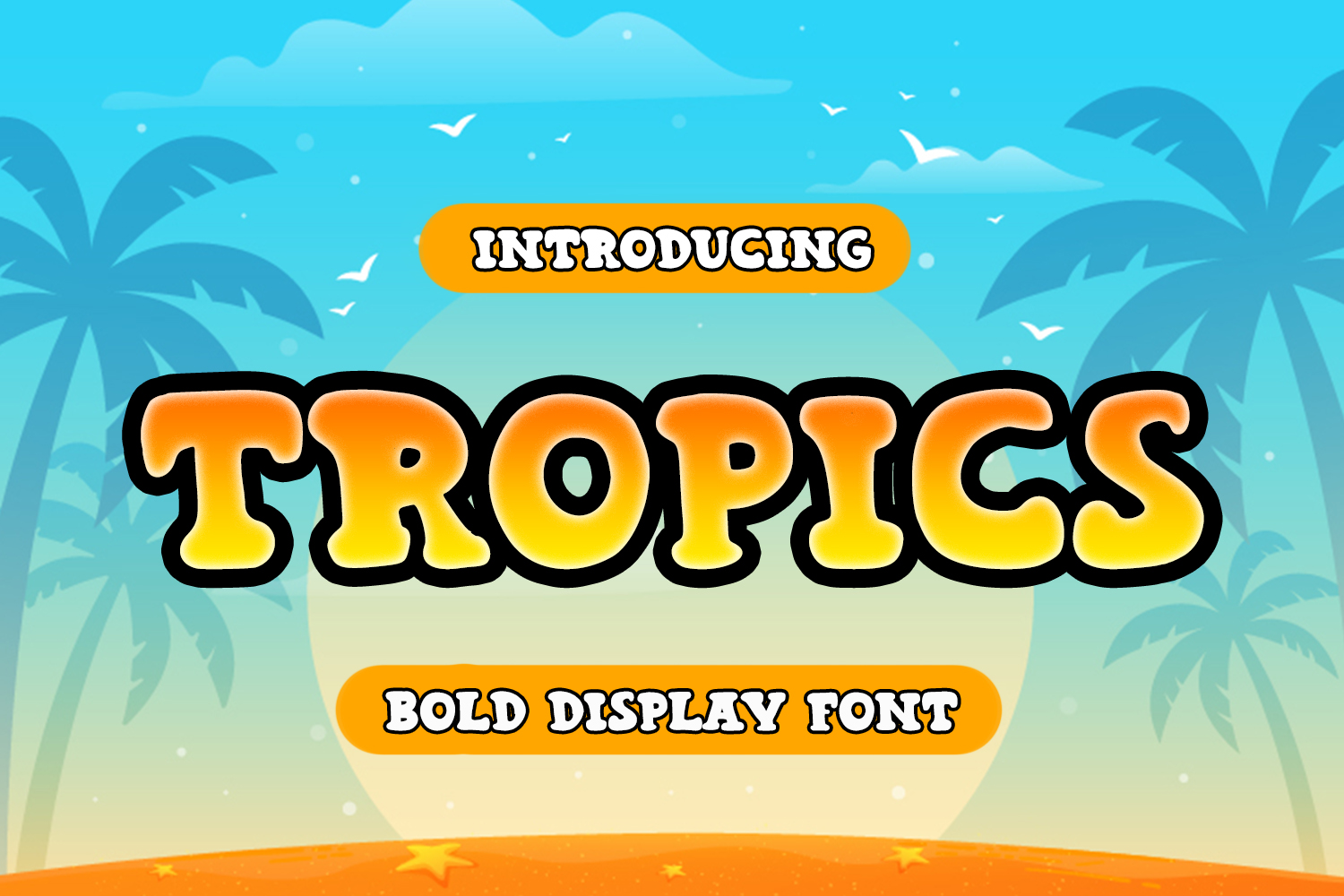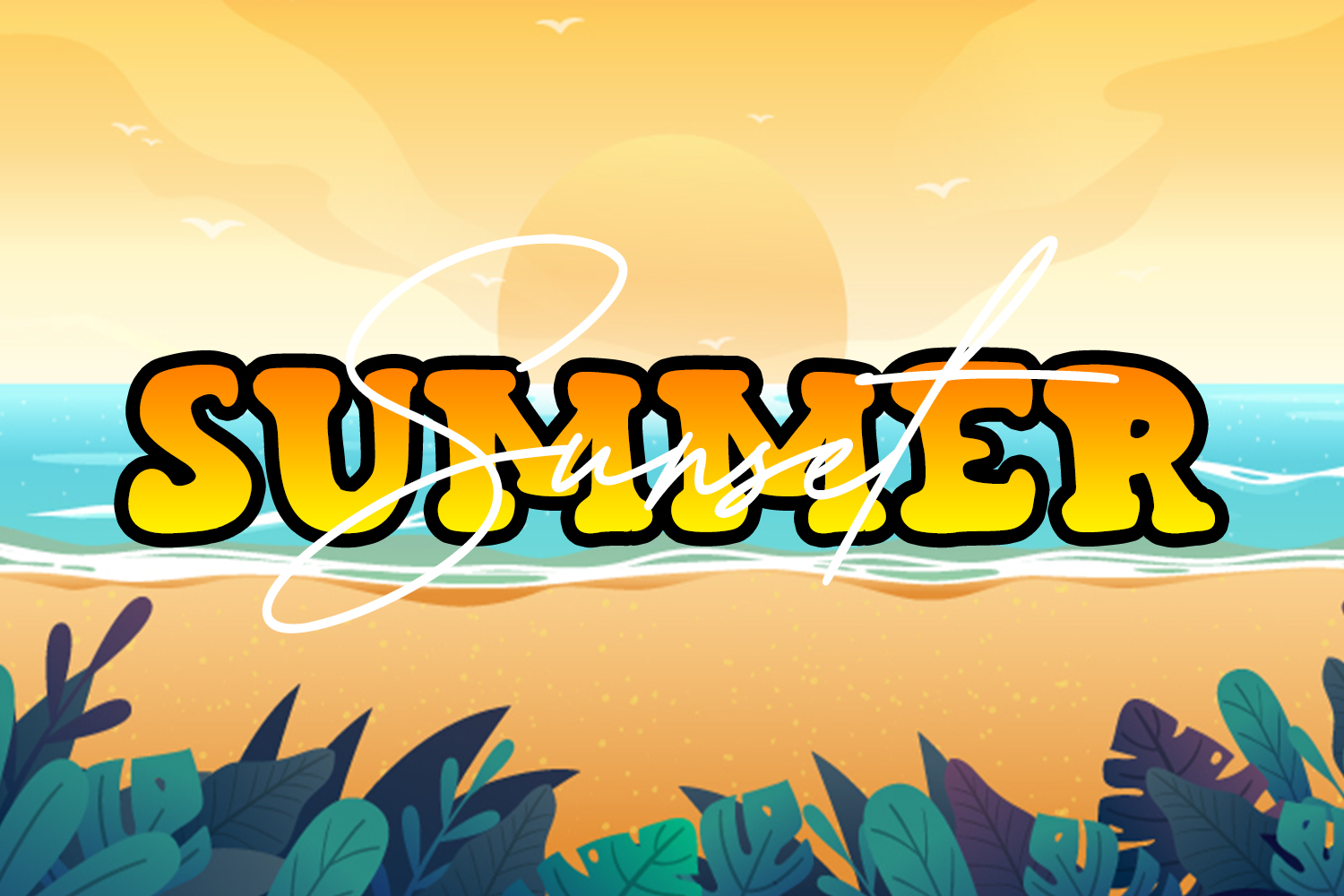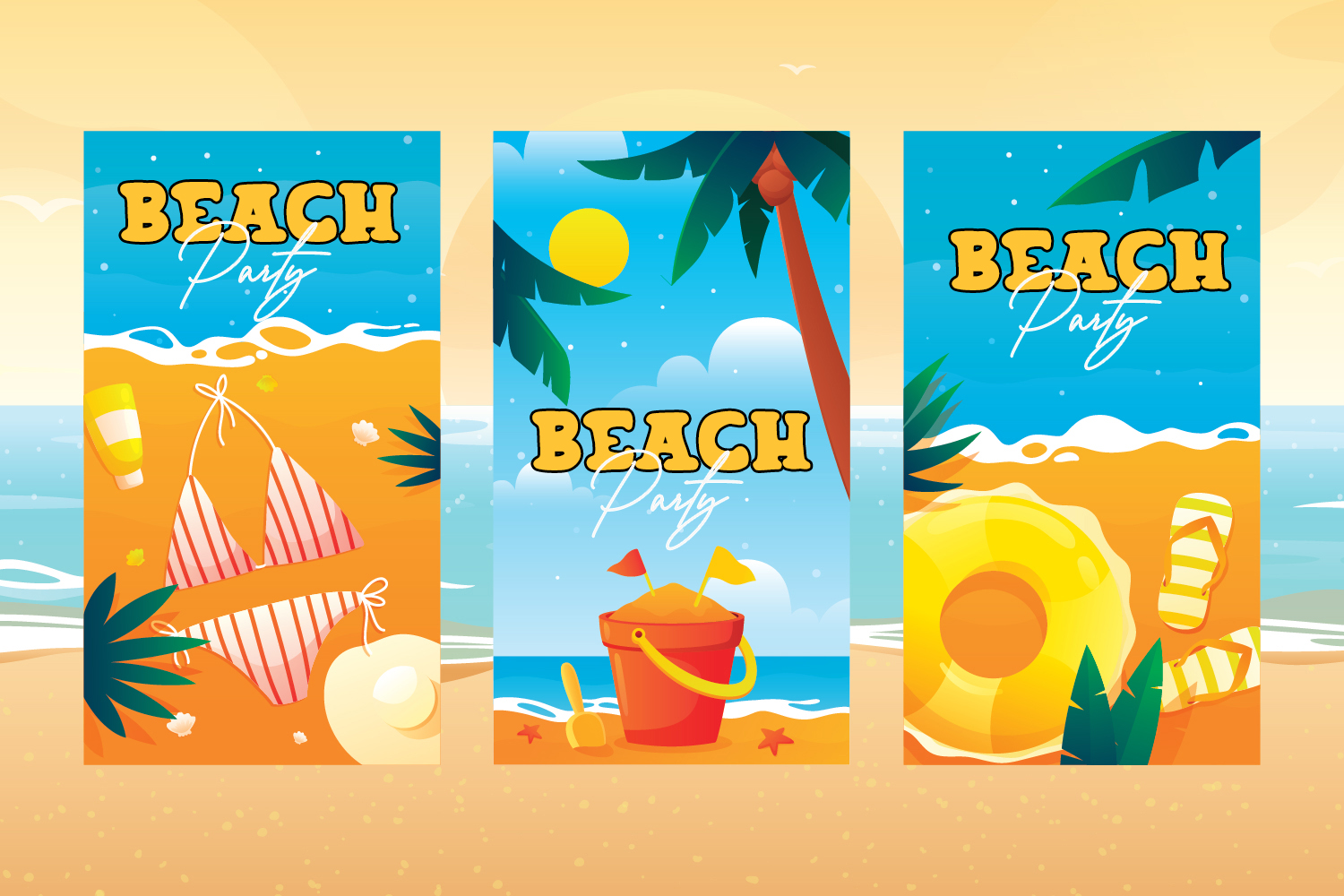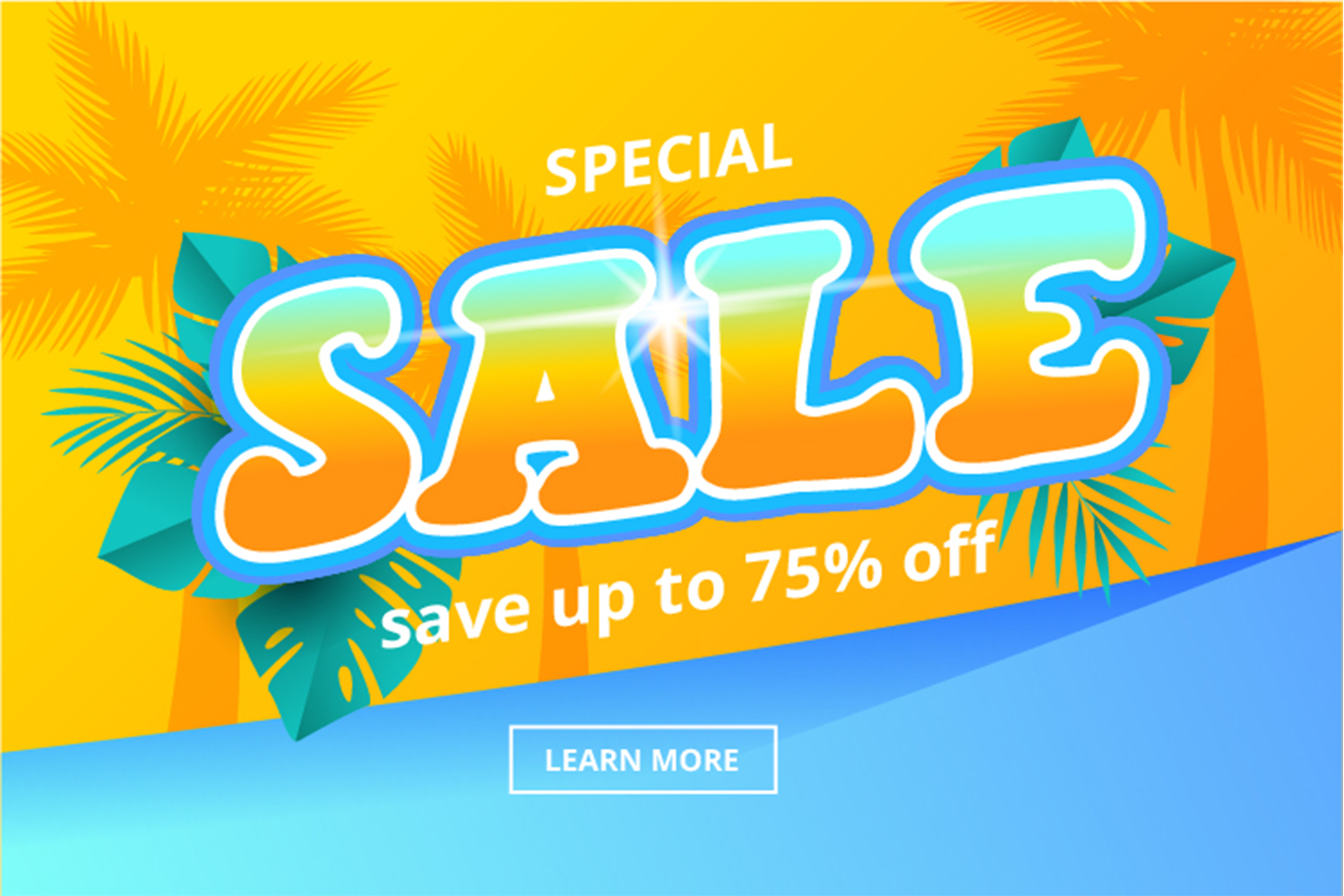
Tropics Free Font
Tropics Free Font is a bold display font with an authentic and playful feel, perfect for branding, logo design, lettering, logotypes, clothing, posters, magazines, packaging, shopping bags, T-shirts, book covers, photography, special events, and many other design projects. This free typeface was designed by a talented Alpaprana Studio. If you like it don’t forget to check out the full version.